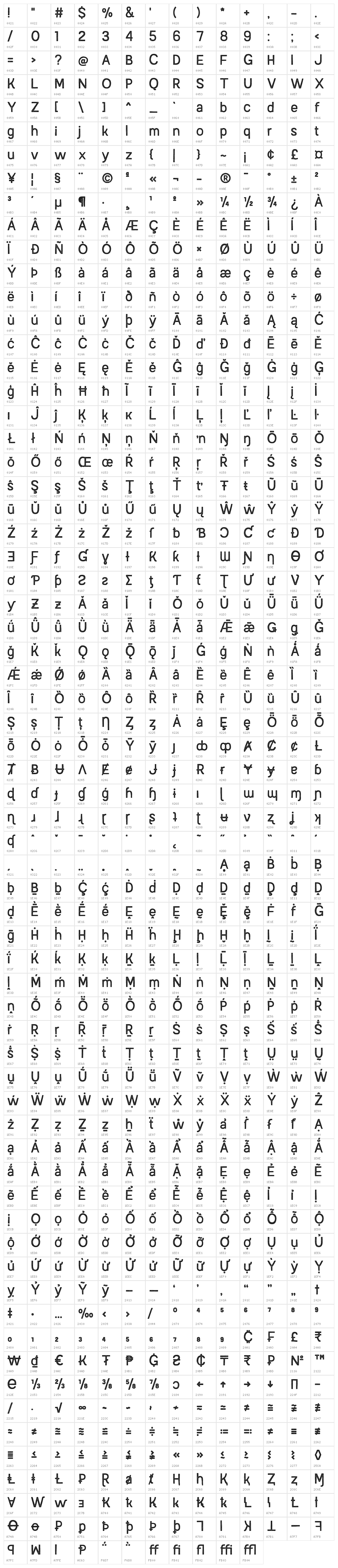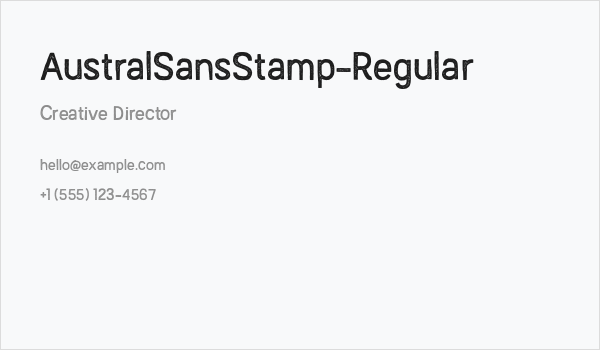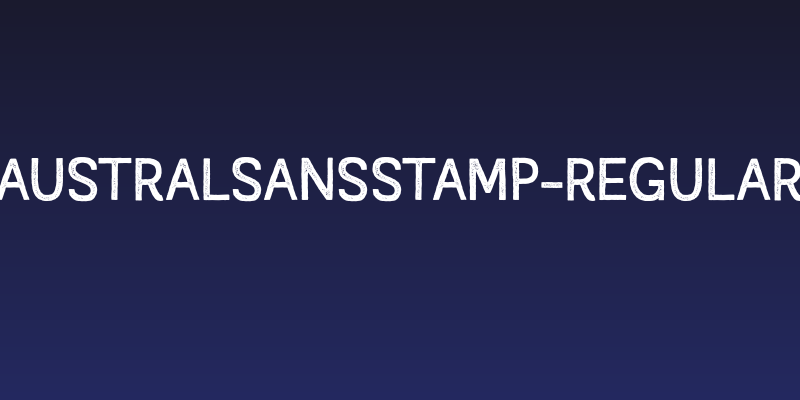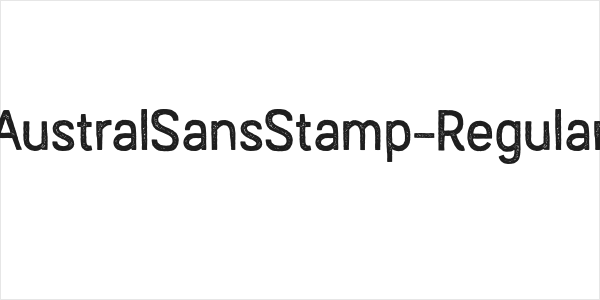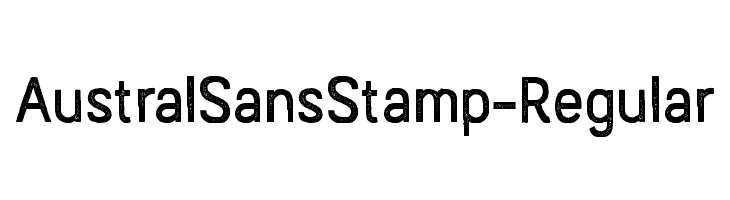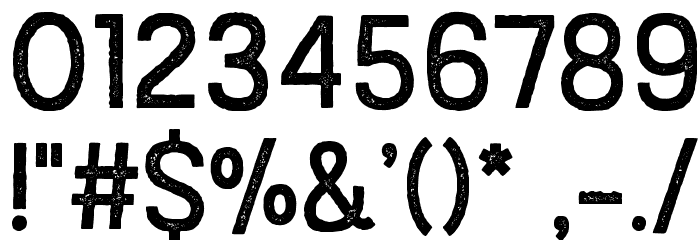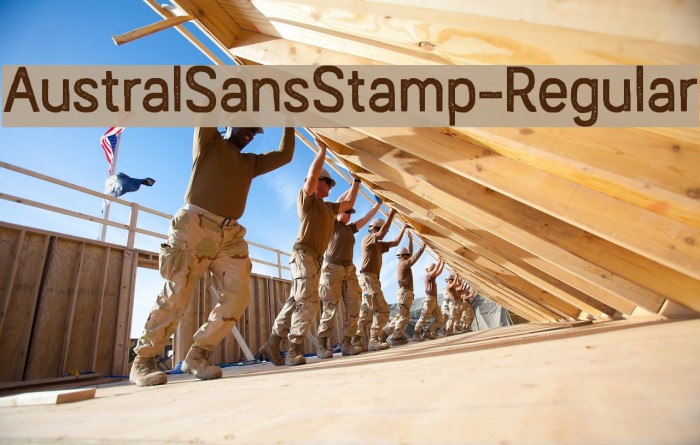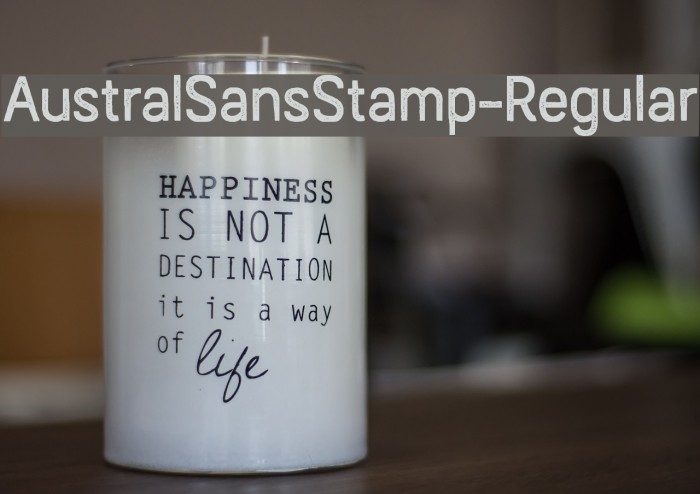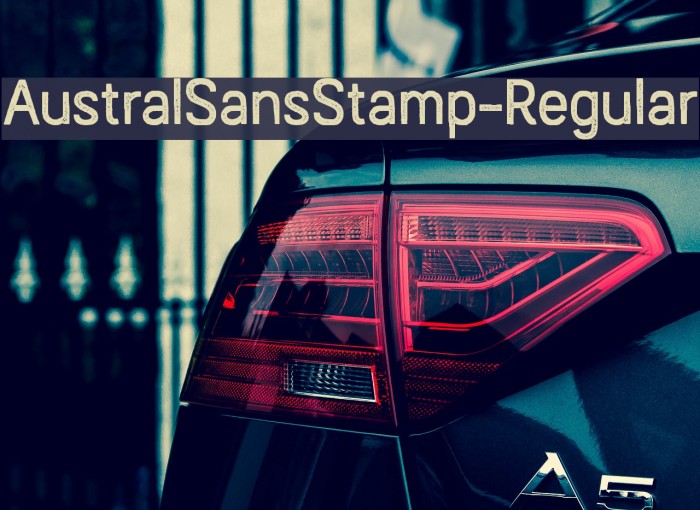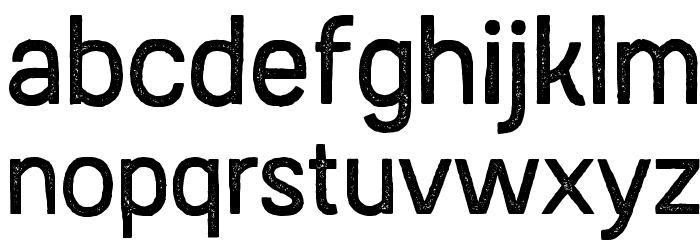
AustralSansStamp-Regular Font
AustralSansStamp-Regular Description
This font features a bold, sans-serif style with a distressed, stamped appearance. The characters are uniformly wide, giving a consistent and balanced look across both uppercase and lowercase letters. The texture adds a vintage, rugged feel, making it ideal for projects that require a touch of authenticity and character. The numerals and special characters maintain the same distressed aesthetic, ensuring a cohesive design. The overall impression is one of strength and reliability, with a modern twist due to its clean lines and geometric shapes.
| Proposed Projects | Ideal for branding, packaging, posters, and any design requiring a vintage or industrial feel. |